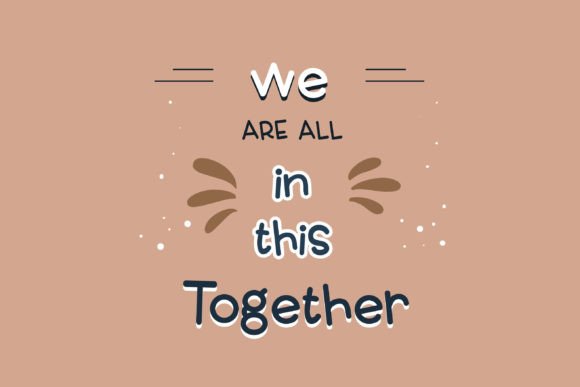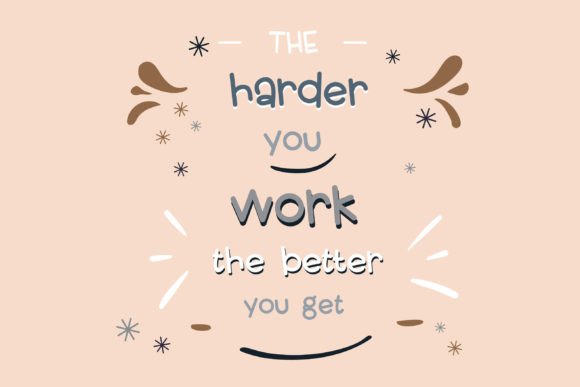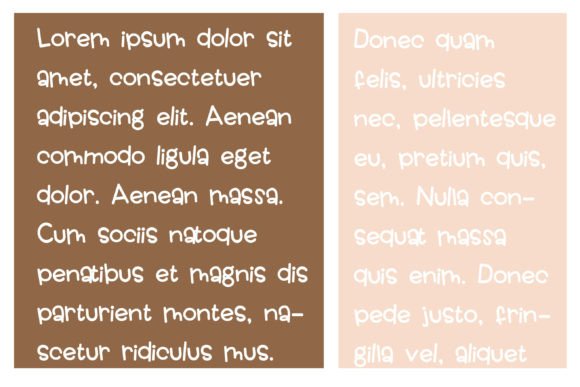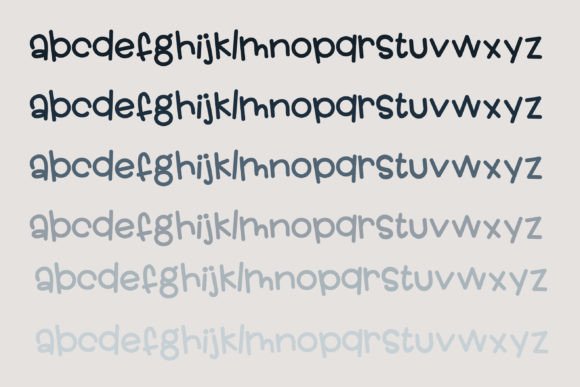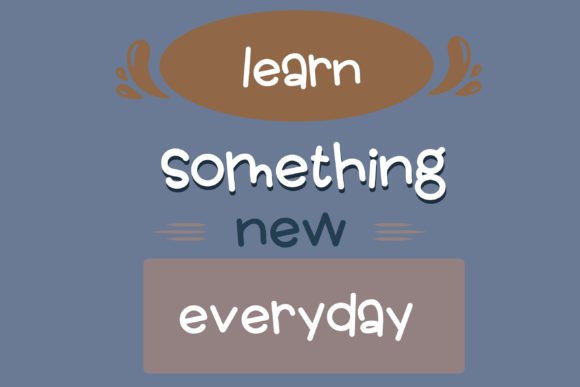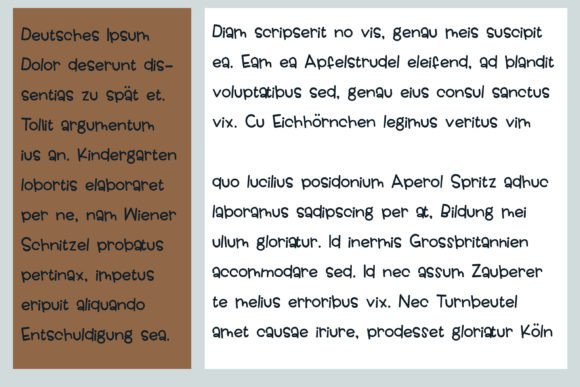
Introduction to Krackshoot Font
This hand-crafted sans serif is a hand-written print with a bit of a fun, whimsical feel.
Bold version included A hand-crafted font is a font that is designed to look like it was written by hand.
Key Features of Krackshoot Font